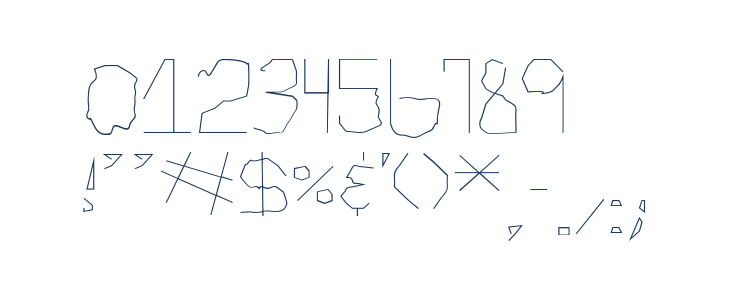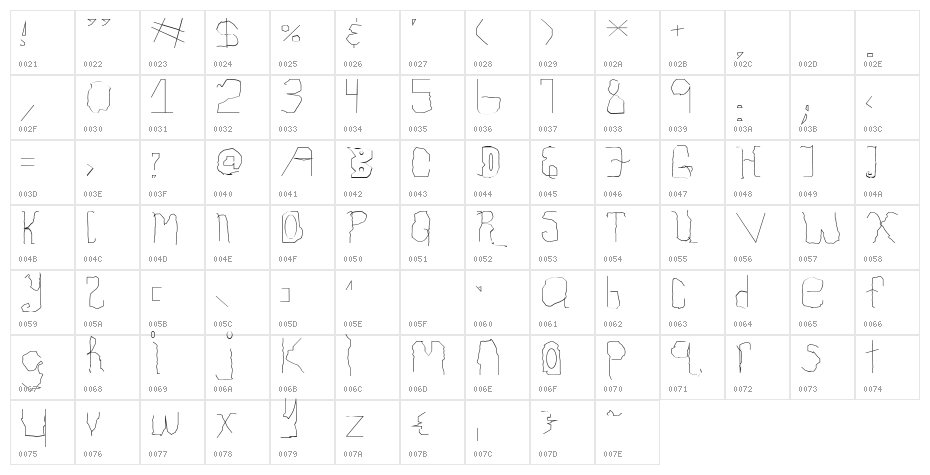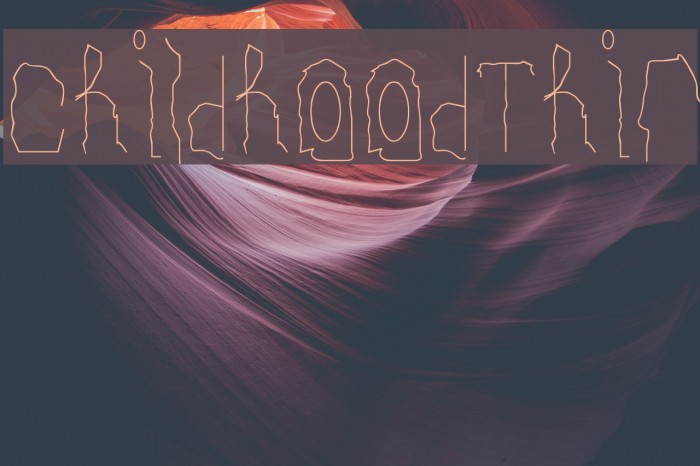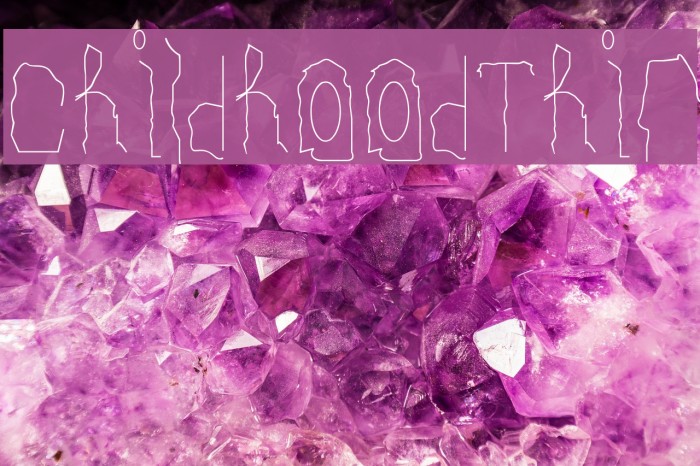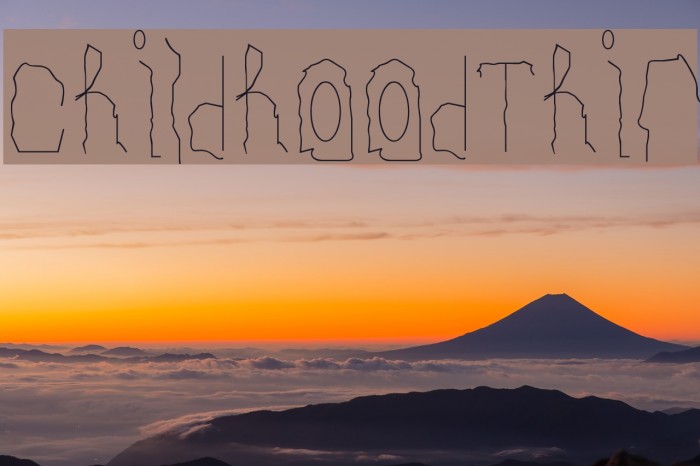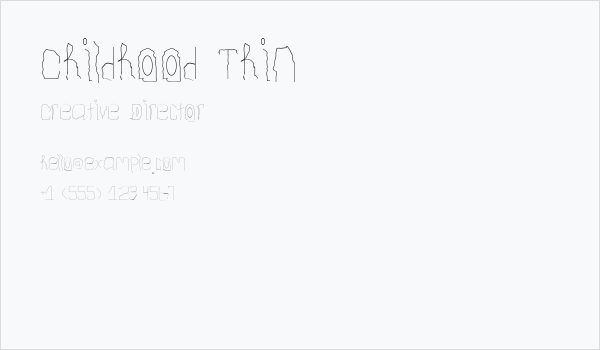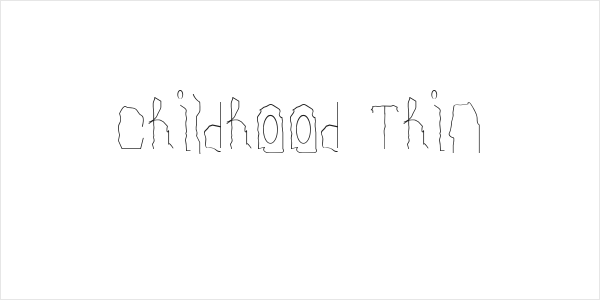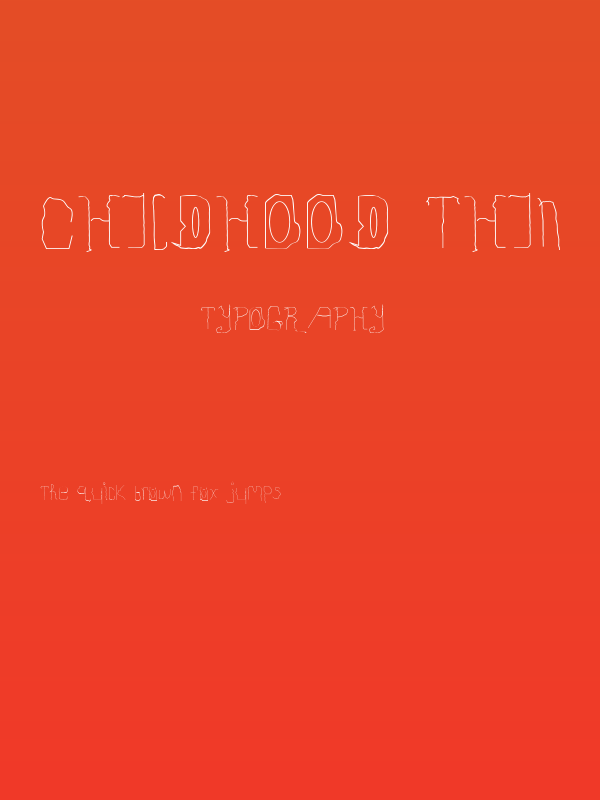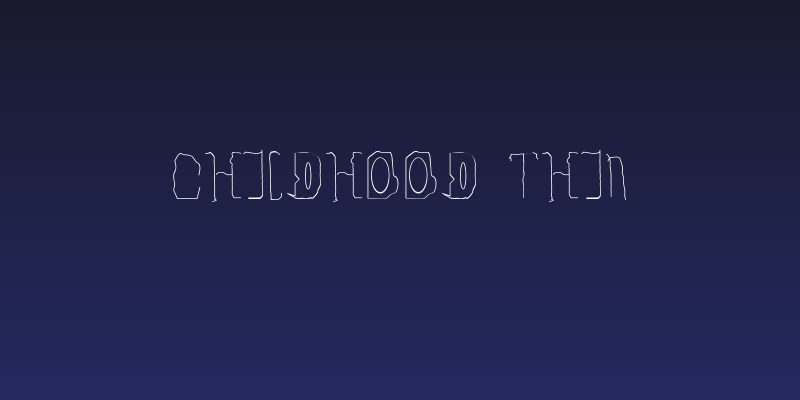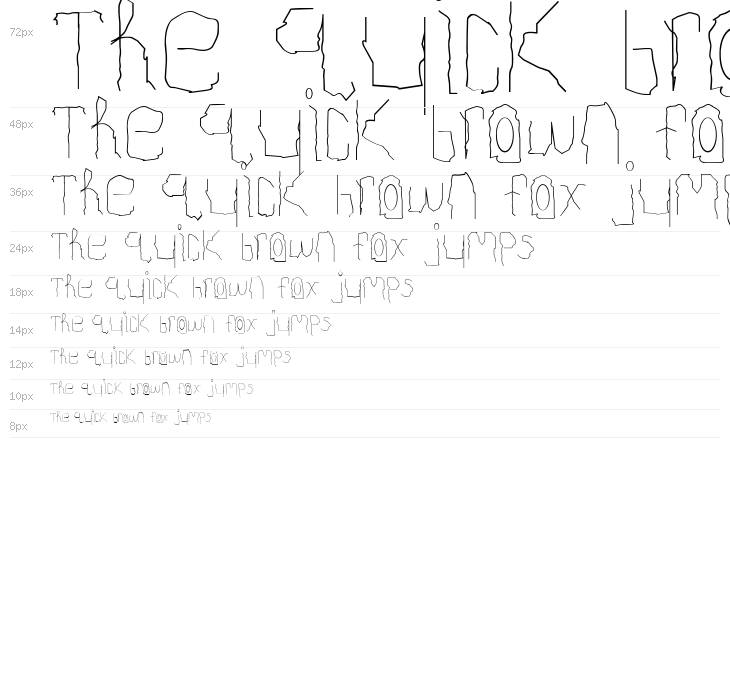
Childhood Thin Font
Childhood Thin Description
This font features a playful and whimsical design, reminiscent of a child's handwriting. The strokes are thin and uneven, giving it a casual and informal appearance. Each character has a unique, hand-drawn quality, with irregular lines and quirky shapes. The uppercase and lowercase letters maintain a consistent style, while the numbers and special characters follow the same playful theme. This font captures a sense of innocence and creativity, making it ideal for projects that aim to evoke nostalgia or a youthful spirit.
| Use Case | Headlines, Creative projects, Children's materials |
| Proposed Projects | Ideal for children's books, playful branding, greeting cards, and creative projects that require a touch of whimsy. |